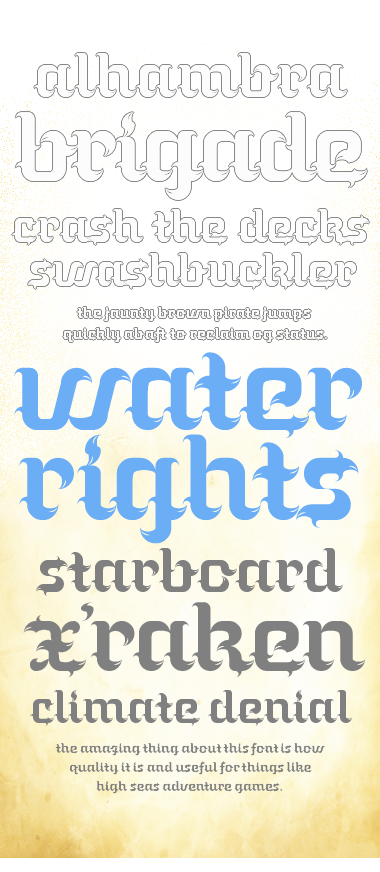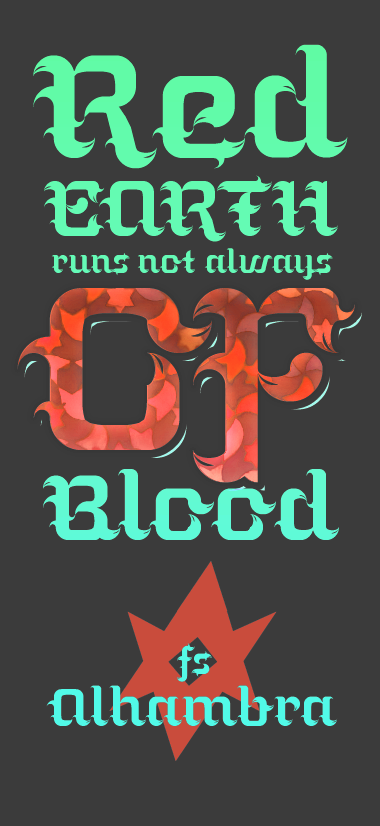
This is, like, unbelievable!!! I don't stand a chance against you, fk, and beate. This is one of the best enteries in this comp already!
A beauty of a script :) I can imagine it painted on the side of a stereotypical cartoony pirate ship now...
Both z's are genius. The x may be a bit overdecorated though.
Thanks guys. I had fun experimenting with fin bricks, a small grid, low-res textural effects via composite stacks, and this quirky fusion geometric script. It’s rather formative, a lot of uncharted territory here. But I don’t know how far I’ll take it, honestly. You’re being too generous to call it a winner at this point. Unless I flesh it out with some strong and stalwart caps, numbers, &c. let’s just call it a fun entry that can get away with a bit of flamboyant swagger. ;~)
p.s. Umbreon126, I took heed of your perceptive feedback on the x and tightened it up for a better result. Thanks!
Shiver me timbers, this is the stuff of treasure maps! It is as if waves are rolling through the text, with little slits subtly mirroring the connectors of subsequent letters. All that's missing is a jolly roger dingbat...
Thanks for the poetry of appreciation, four! I love your concept of piratey dingbats. I should see what I can do at this scale. : )
Fin bricks are awesome, aren't they? Even though I've been experimenting with them for a while now, there are lots of possibilities still to discover. Solid entry with pro execution.
Wonderful - the delightful detail that comes alive at full magnification is exquisite. 10/10+++
Awesome use of fin bricks!
nice entry and very nice work, once again. your work is very sublime. easy on the eyes, but i never underestimate the effort it takes to make it look so. this one has surprises large and small. good luck.
I updated my sample with improved e, f, k, x, z, and an opened-up w. I feel particularly pleased with the revised x. It taught me new approaches to the composition/stroke order for this historical form while challenging me with fancy brickwork to strike a better balance of color and structure.
@architaraz: Thanks, my friend. I agree; fin bricks are full of surprises! I have an affinity for your many innovative approaches to them (I could list more!).
@p2pnut: I’m glad you enjoyed exploring this from different perspectives. I’m intrigued by how the brush details adapt to different resolutions.
@funk_king: Thank you for your kind compliments. As they say, gods in the details. Or is it devils in the details? After so many hours staring at the fontstructor, one can’t be entirely sure! ;)
Just a beauty! 10/10.
BTW, "Alhambra" means "The Red (fortress)" in old arab language. Also, it's the name of one of the arab monuments more marvelous in the world, near to me, in Granada (Spain).
Comment by elmoyenique 7th june 2013
Comment by William Leverette (will.i.ૐ) 8th june 2013
@elmo: Thank you for teaching us. You are very very lucky, my friend, to live near such stunning and historical monuments as Calat Alhambra! I wish to visit there and soak it all in. Pure, visually arresting architectural arabesques.
Did you know the impeccable tile work served as a major inspiration for the mathematics and artwork of M.C. Escher? My sample above plays with some of these tessellating forms found there. Looks like they already had fin bricks all the way back when. ;)
I named this fontstruction after Calat Alhambra from early on while pursuing a much more Arabic flavored script. The style began to blend with blackletter motifs and then took on a fat, round brush texture. The “pirate” theme emerged. Actually, that all sounds pretty Moorish to me.
The cross-cultural shorelines and artistic achievements of Andalusia dwarf mine a million fold...I just couldn’t resist a beautiful name and an epic reference. :)
Comment by William Leverette (will.i.ૐ) 8th june 2013
Very entertaining form of scripture. 10/10.
Congratulations! FontStruct Staff have deemed your FontStruction worthy of special mention. “fs Alhambra” is now a Top Pick.